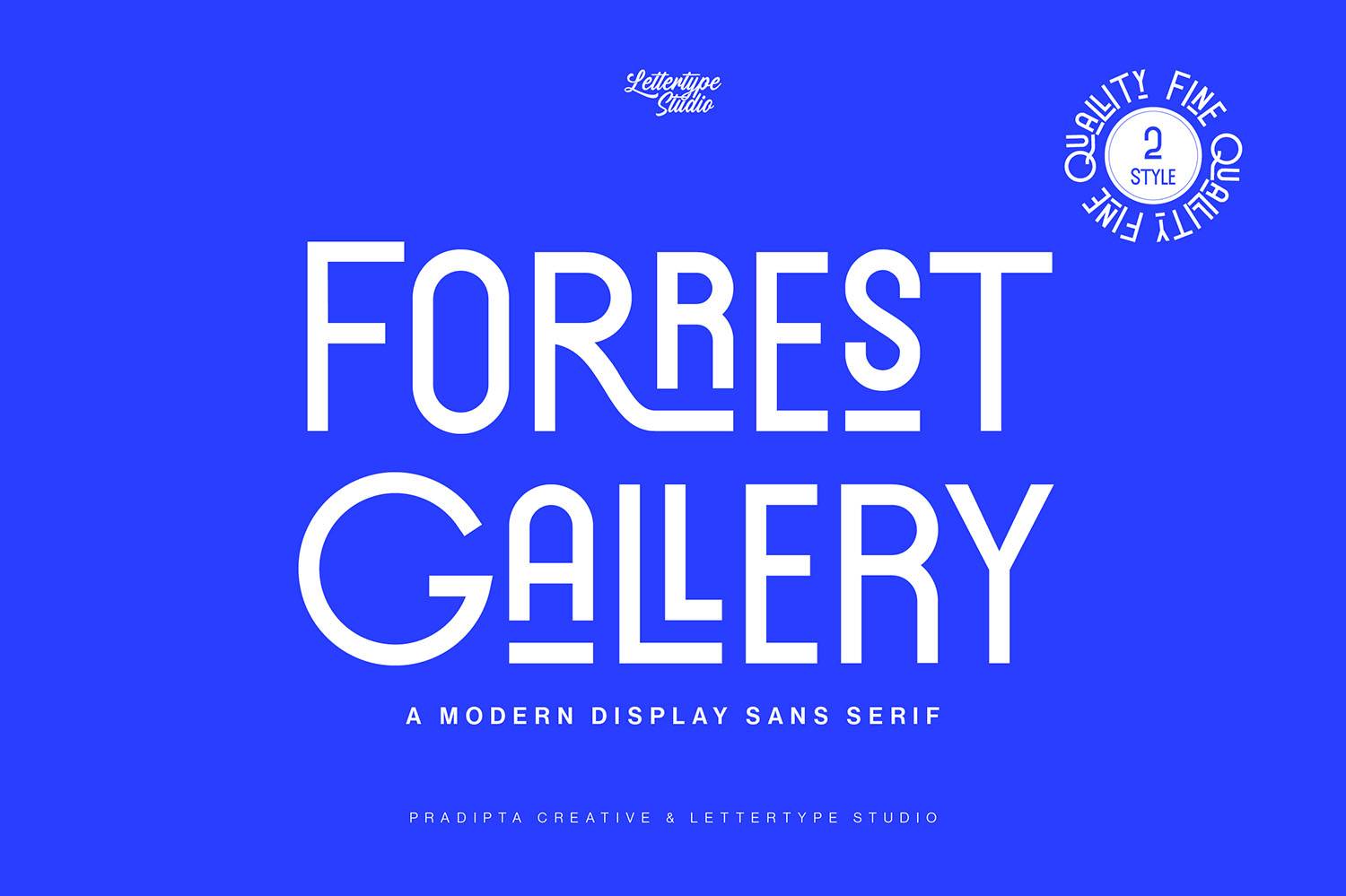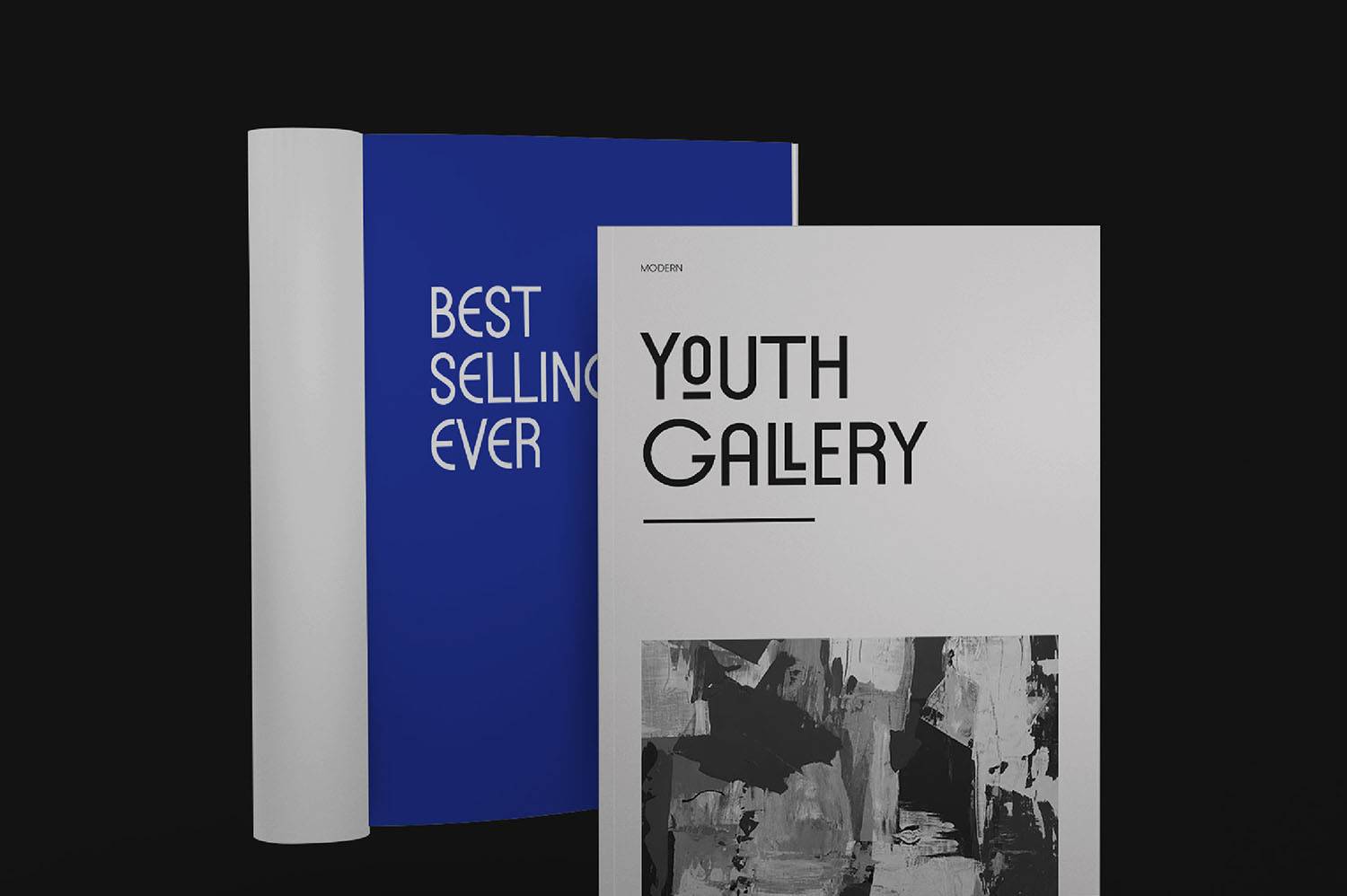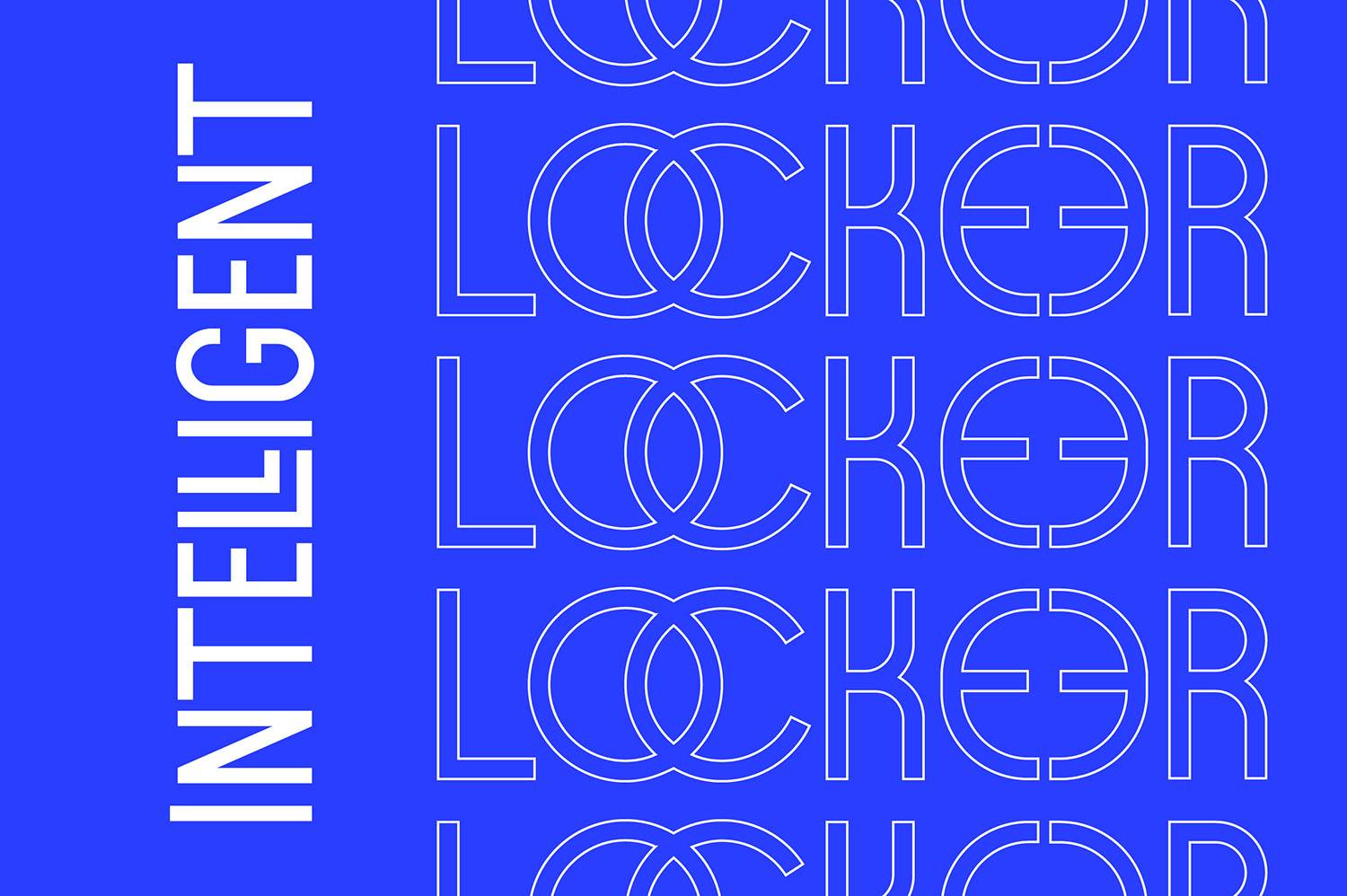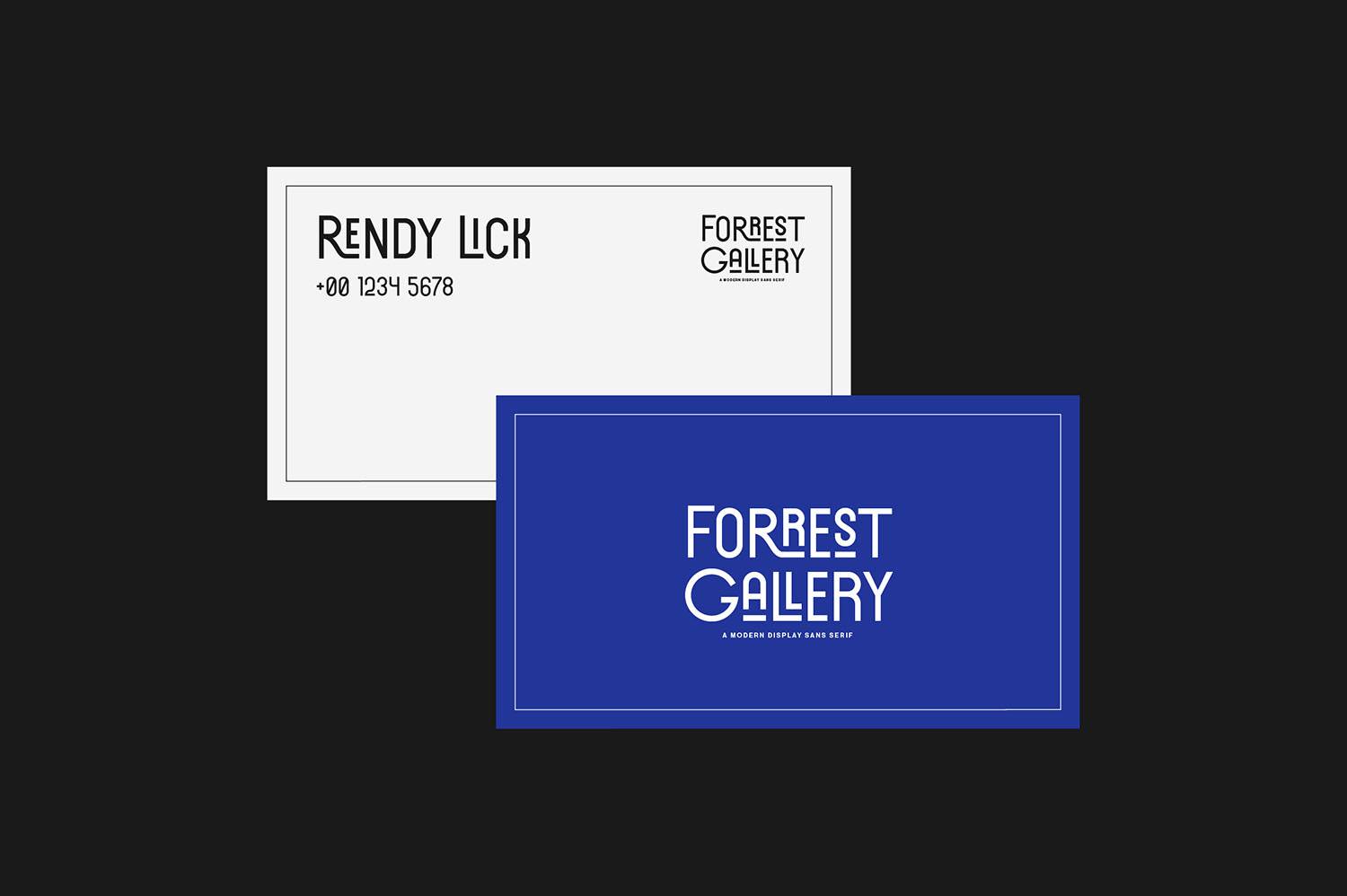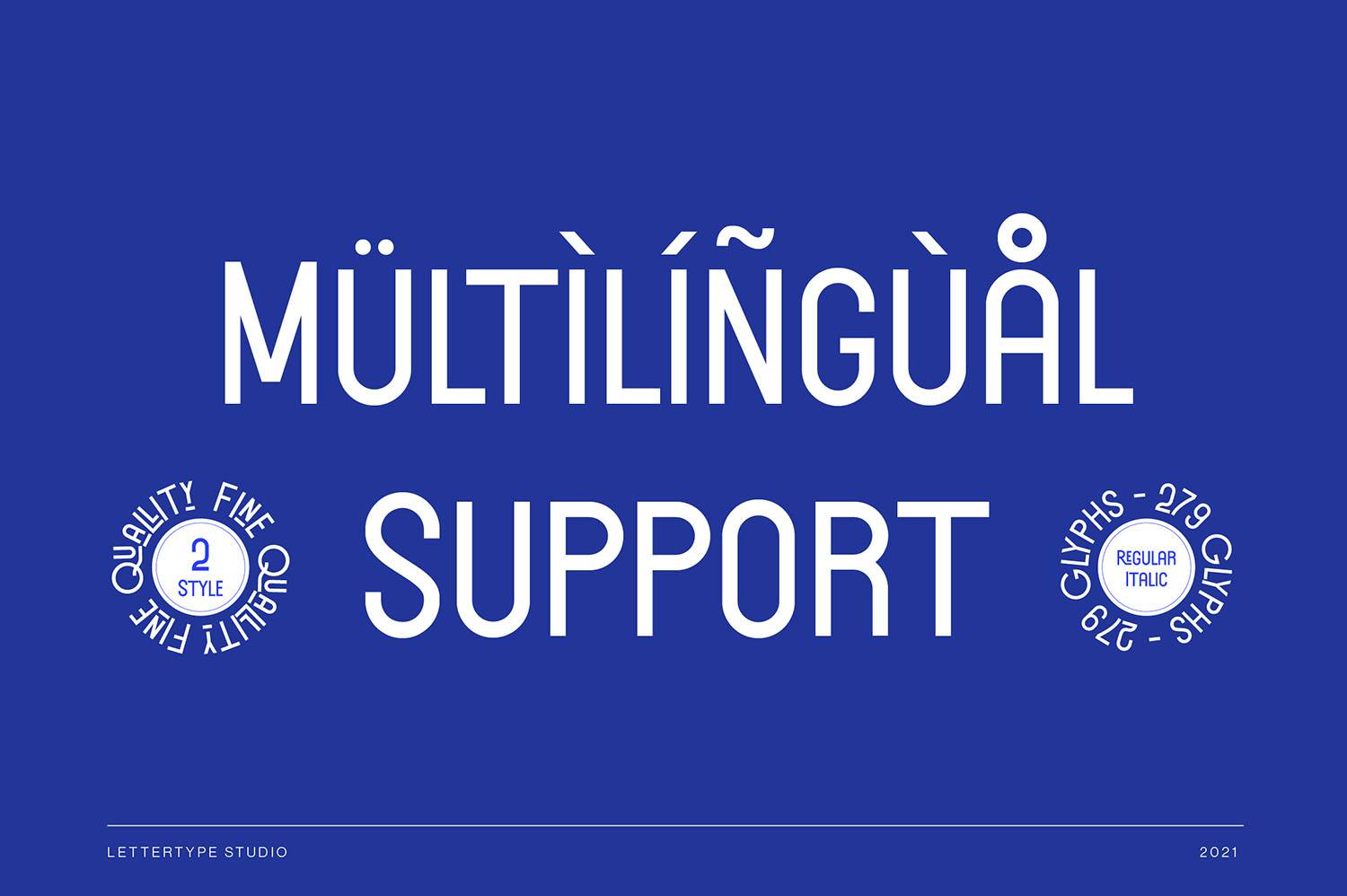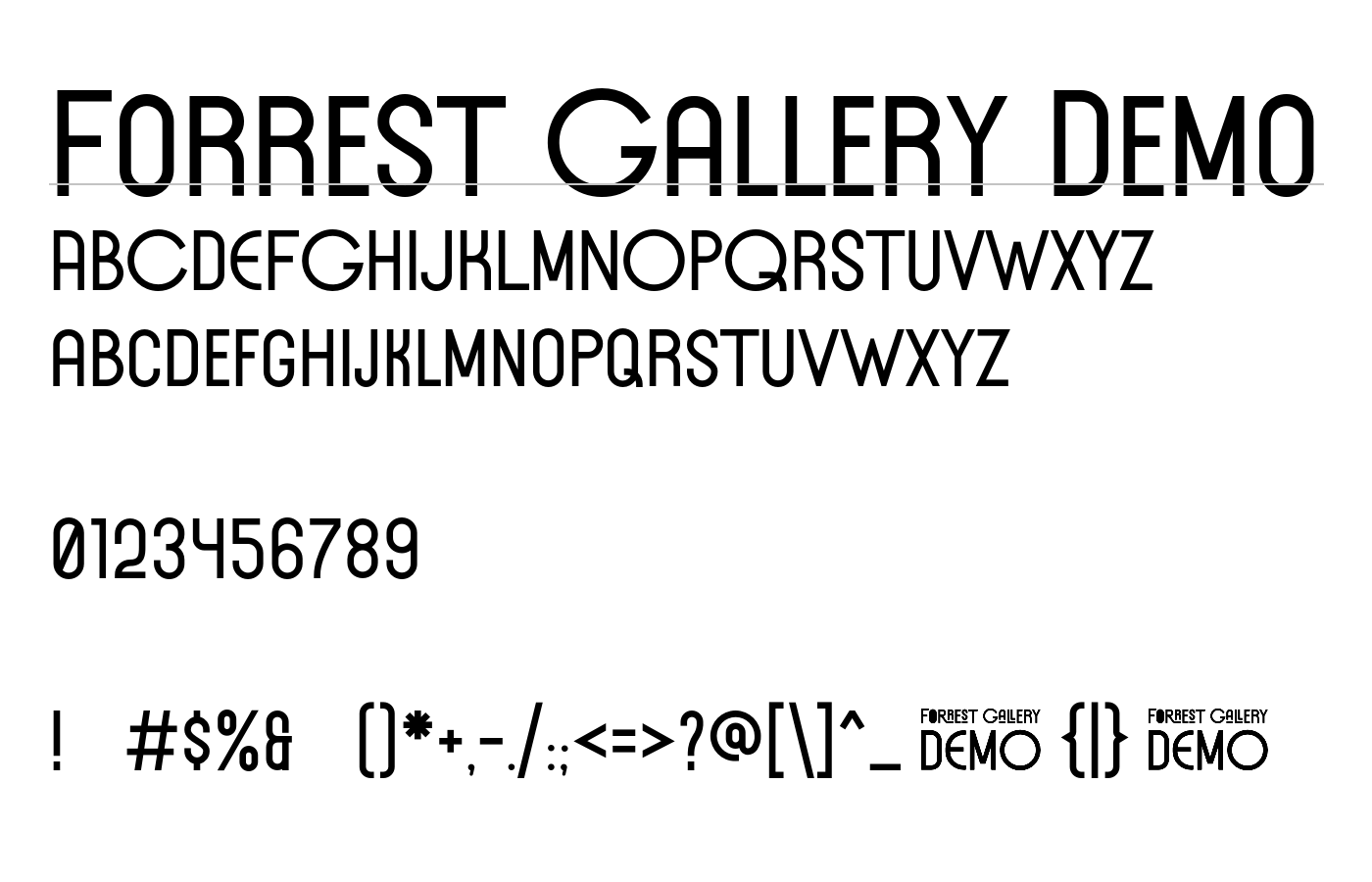
Forrest Gallery is a sleek, condensed sans serif font with a modern, geometric feel highlighted by its tall, narrow letterforms and minimal stroke contrast. Its clean lines and distinctive letter shapes give it a contemporary, elegant personality, making it ideal for stylish headlines, logos, and branding that seek a sophisticated yet approachable look. This font works best where space is limited but clarity and originality are key, such as editorial design, fashion branding, and trendy web interfaces.
Forrest Gallery Font
About Forrest Gallery Font
| Font family | Forrest Gallery Font |
| Release date | 2021-11-30 |
| Designer | Diki Pradipta Tri Atmojo |